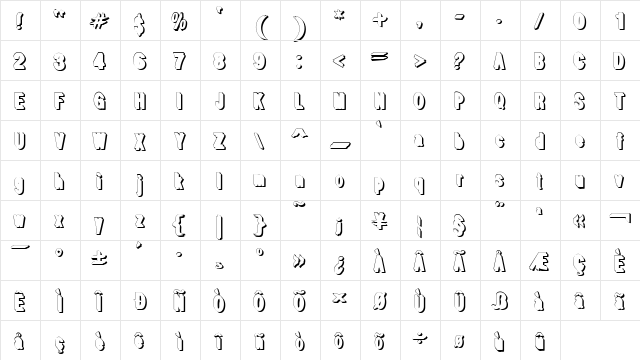
White Free Regular Font Preview
White Free Regular
| Foundry | Paulo W, Intellecta Design |
Design Context for White Free Typeface
White Free is a composed and adaptable typeface that performs quietly and consistently across a wide range of design contexts.